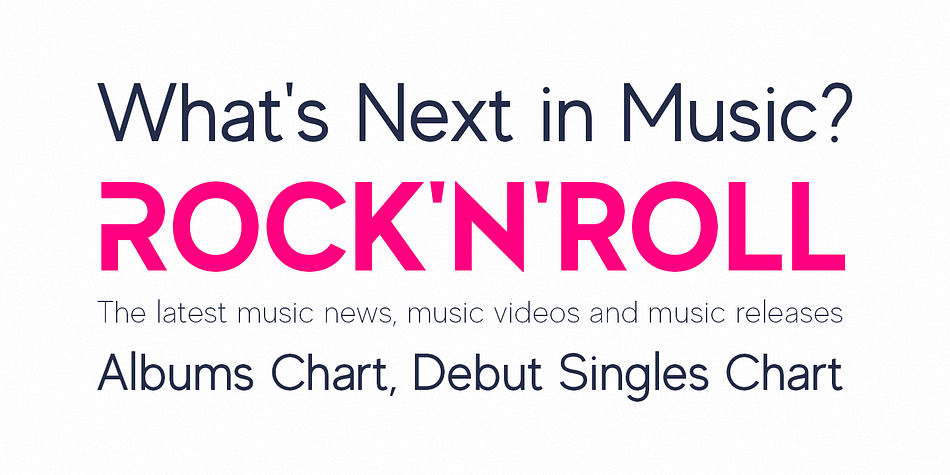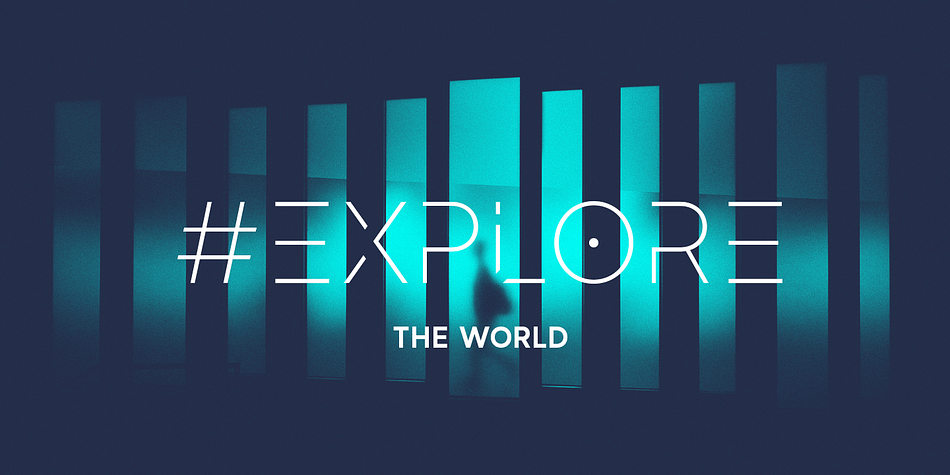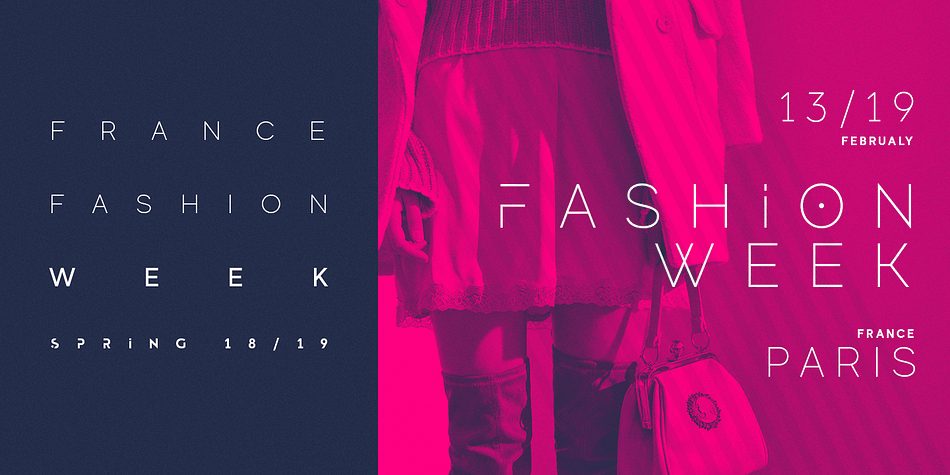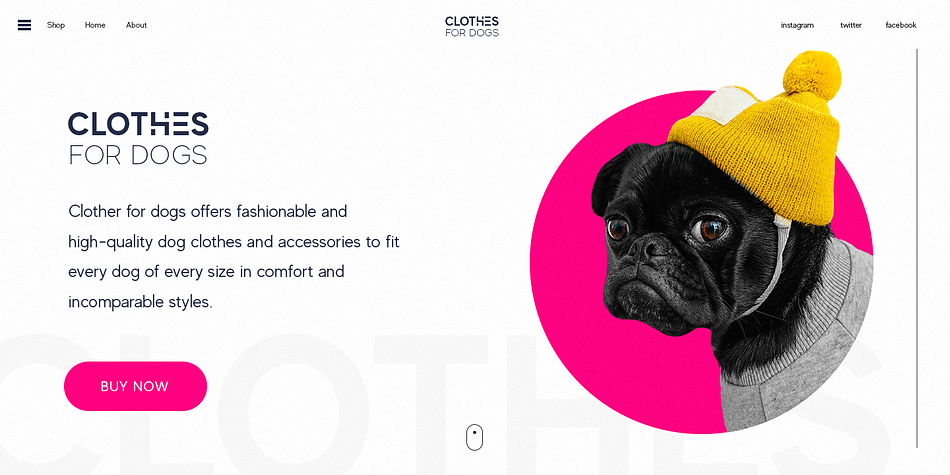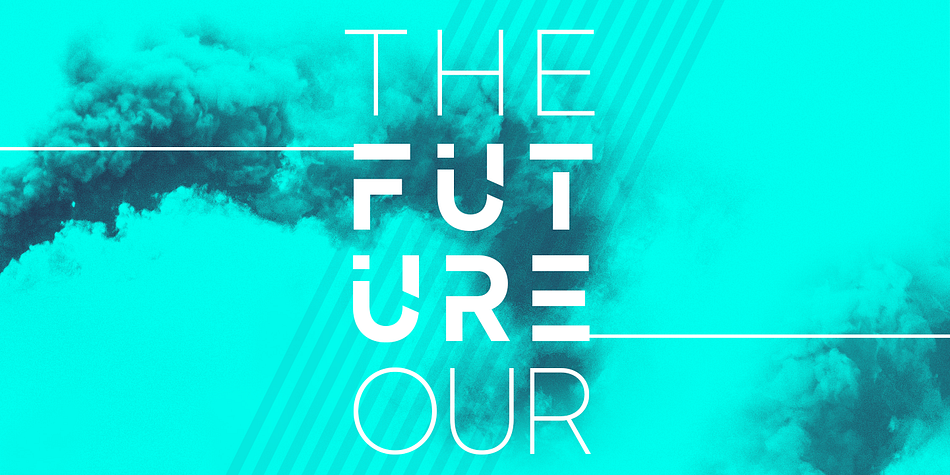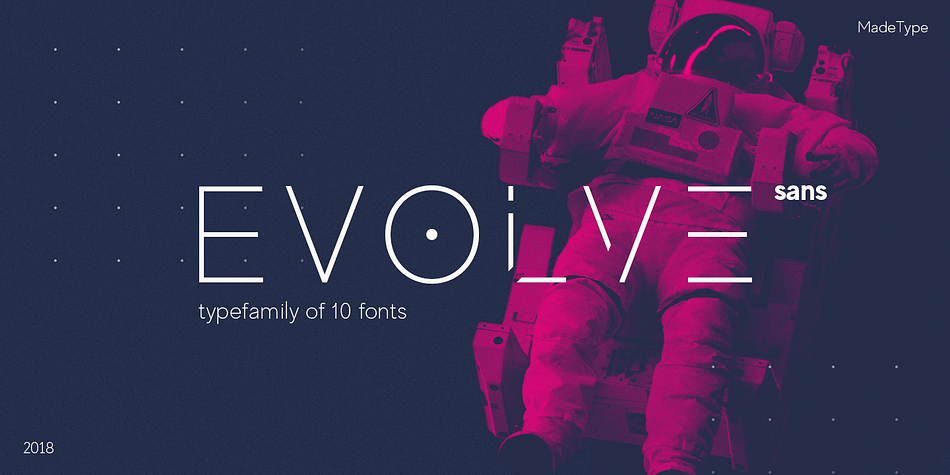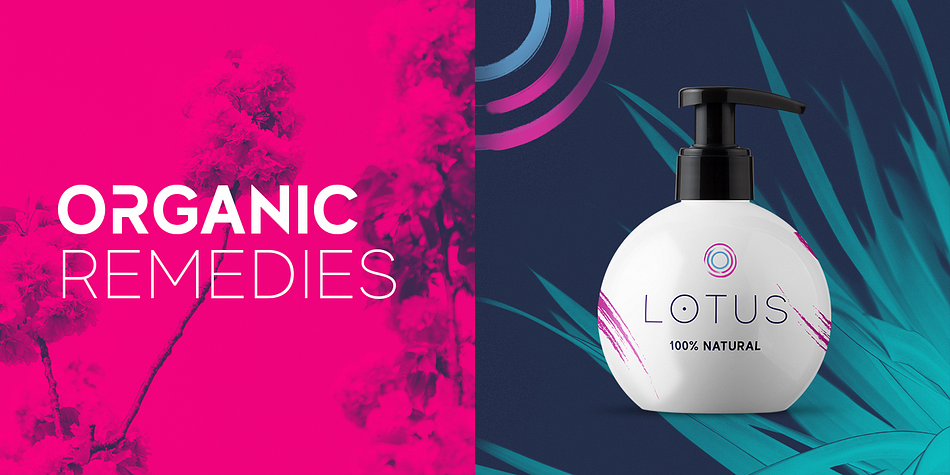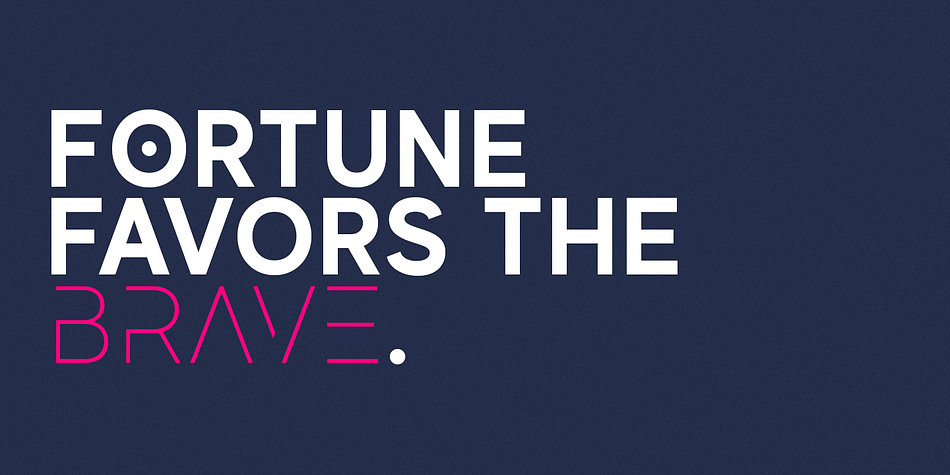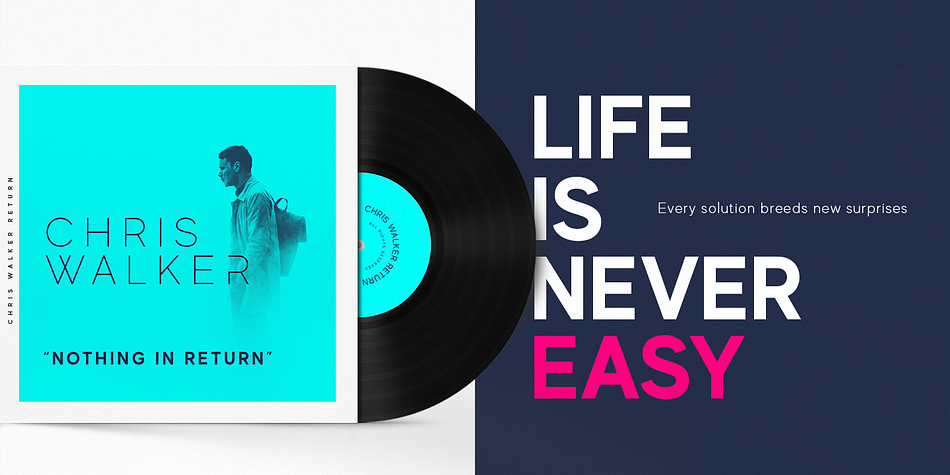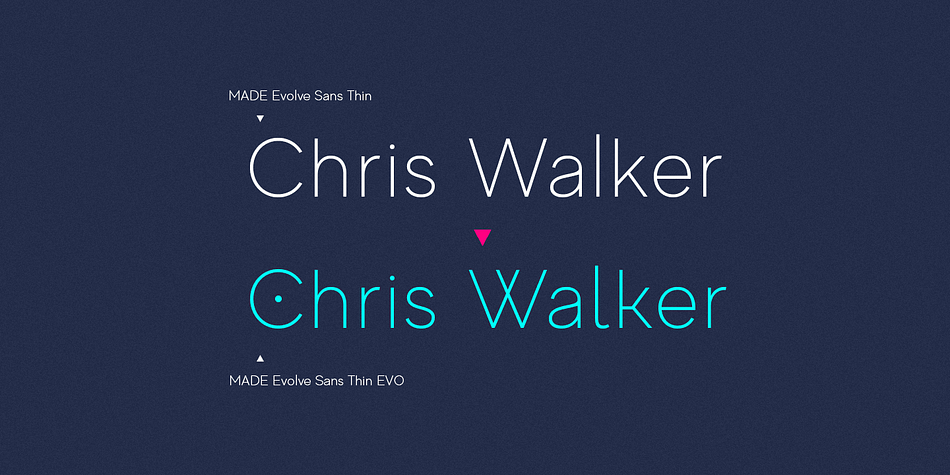
Designed by Maxim Schepin and Denis Schepin, MADE Evolve Sans is a display sans and sans serif font family. This typeface has ten styles and was published by MadeType.
MADE Evolve is a modern and futuristic sans serif font family. The combination of futuristic and geometric elements renders a modern design.
The MADE Evolve family includes 10 fonts, 5 sans serif weights and 5 weights with futuristic caps, thereby creating more variability. This is irreproachable sans serif to diversify your headlines, branding visual identity, poster, logo, magazines and etc.